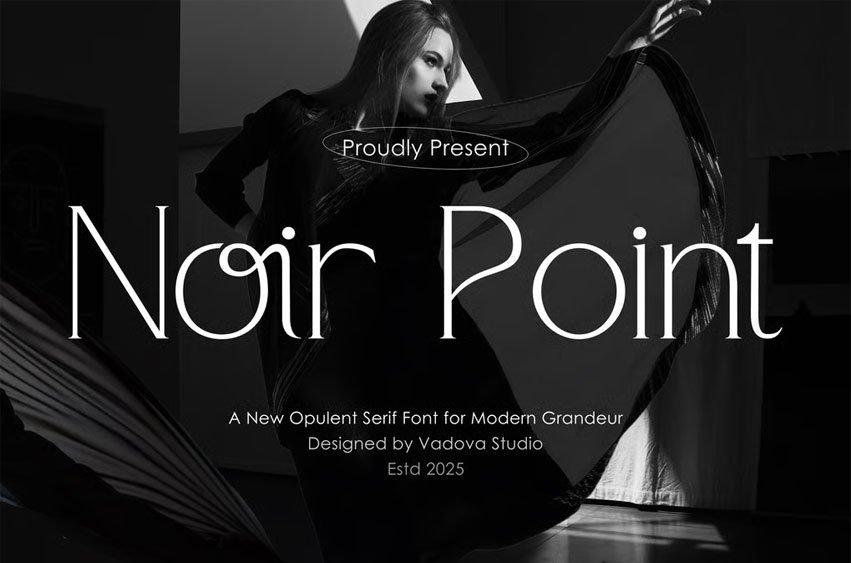
Noir Point Seif Font is a refined modern serif font that blends elegance and minimalism for sophisticated branding and editorial work. With its thin, stylish strokes and contemporary flair, it’s perfect for luxury logos, fashion magazines, portfolio headers, and upscale packaging. Noir Point balances classic serif charm with modern design sensibilities, making it an ideal typeface for designers seeking grace, clarity, and timeless visual appeal.
Noir Point Seif Font Preview